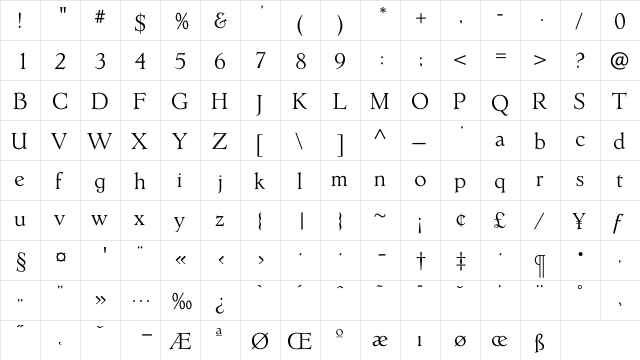
ErasmusLight Regular
Design Context for ErasmusLight Typeface
ErasmusLight offers clean, dependable letterforms without strong stylistic allegiance, making it a practical choice for designers who need flexibility. Its slender proportions lend an understated elegance to any composition.
Pro Tip: Pair ErasmusLight with a font of contrasting weight or personality to build a more expressive typographic hierarchy.